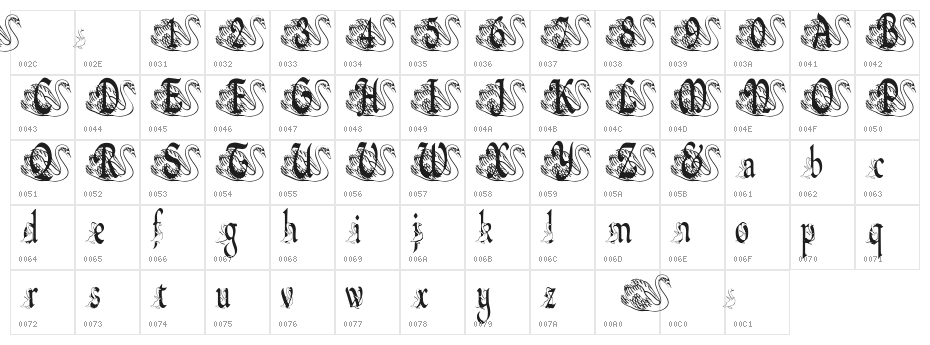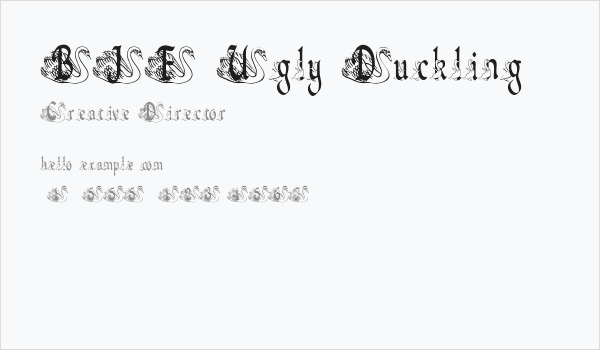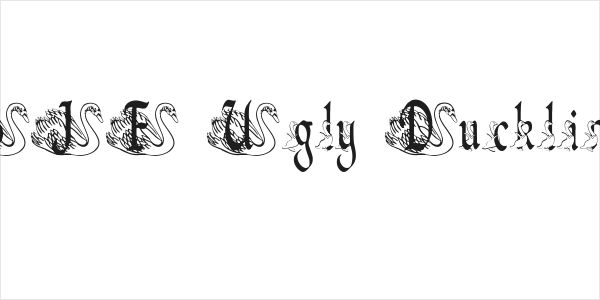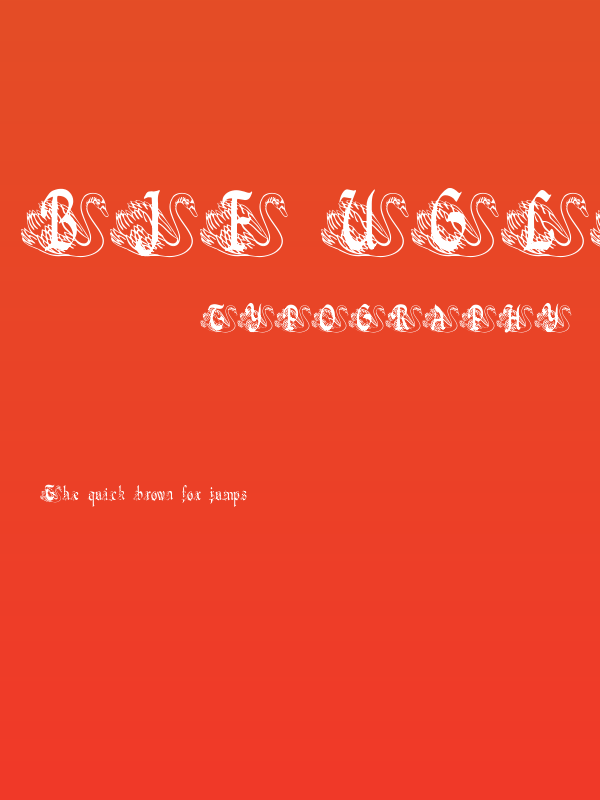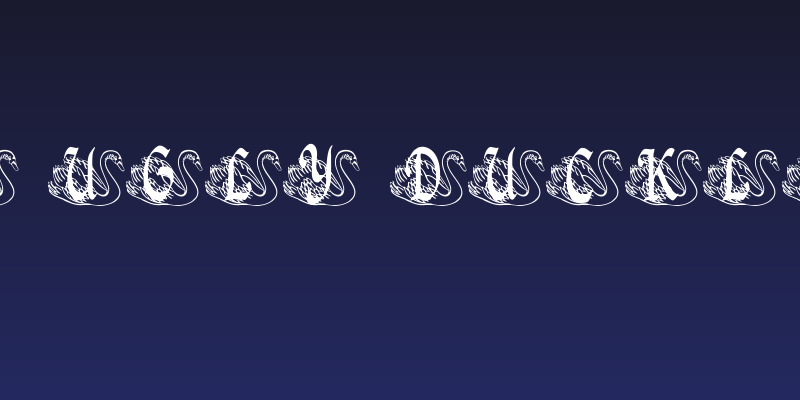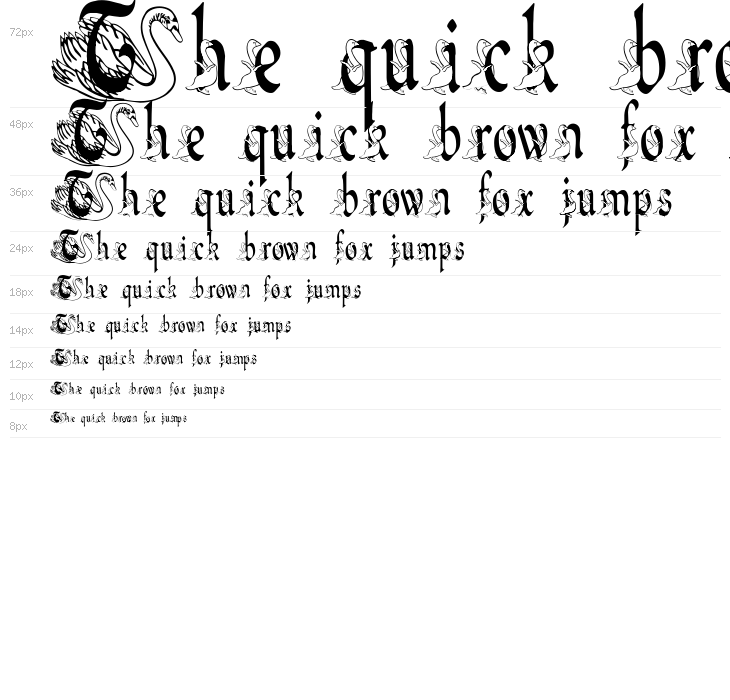
BJF Ugly Duckling Font
BJF Ugly Duckling Description
This font features a unique and decorative style, incorporating swan illustrations into the design of each character. The uppercase letters are adorned with intricate swan motifs, creating a whimsical and artistic appearance. The lowercase letters maintain a more traditional blackletter style, offering a striking contrast to the embellished uppercase. This combination of elements gives the font a fairy-tale or storybook quality, making it ideal for creative and themed projects. The font's decorative nature and detailed illustrations make it stand out, providing a distinctive visual impact.
| Proposed Projects | Perfect for storybook titles, fantasy-themed designs, invitations, and decorative posters. |